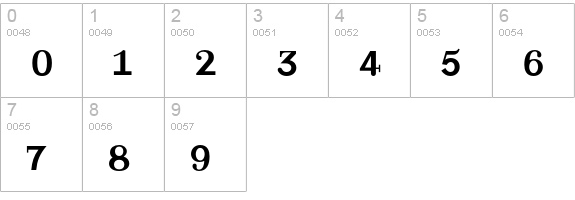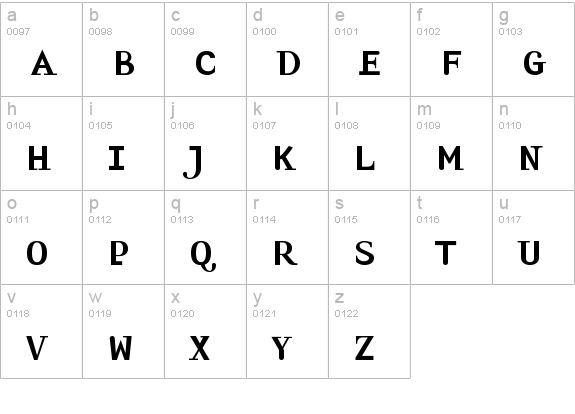
AmplifierLightSmallCaps Font Details
AmplifierLightSmallCaps font is a sleek and modern typeface designed for adding a touch of sophistication to your projects. With its clean lines and elegant curves, this font exudes a subtle charm that is ideal for a wide range of design applications. Perfect for headings, logos, and other display purposes, AmplifierLightSmallCaps is sure to make a statement. Best of all, this font is available for free at FontsMarket.com, making it accessible to designers and creatives looking to elevate their work without breaking the bank. Download this versatile typeface today and add a touch of elegance to your designs!